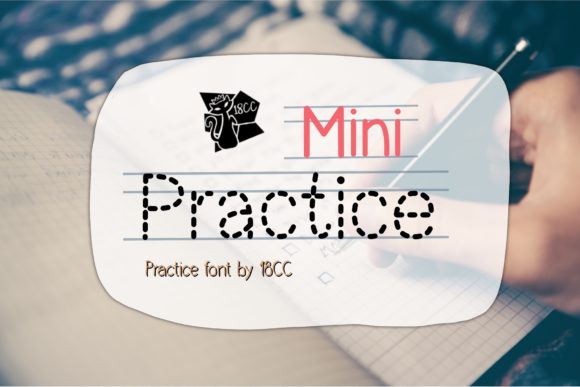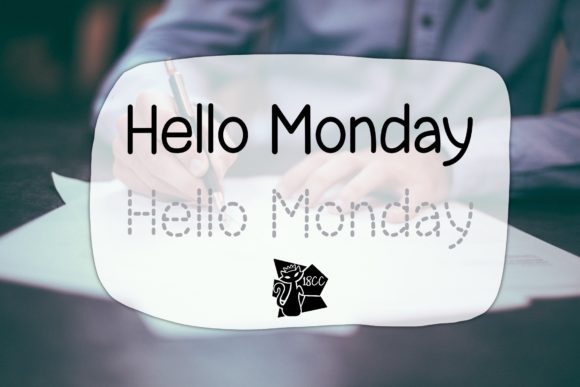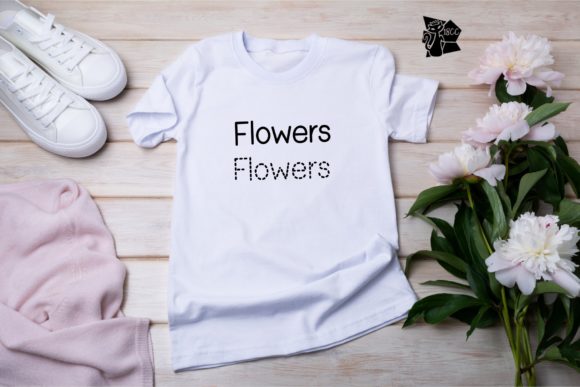
About Mini Practice Font
Mini Practice is a cute handwritten font monoline and dash for practice. Clean and a cute for crafty DIY projects, and much more! This font is suitable for various products such as invitations, product packaging, quotes, product design, crafter, labels, photography, watermarks, logos & branding.